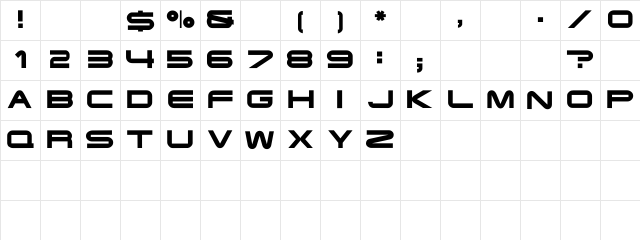
Complete Stretcher Regular glyph index. Displaying only characters natively supported by Stretcher Regular font.
Stretcher is a composed and adaptable typeface that performs quietly and consistently across a wide range of design contexts.